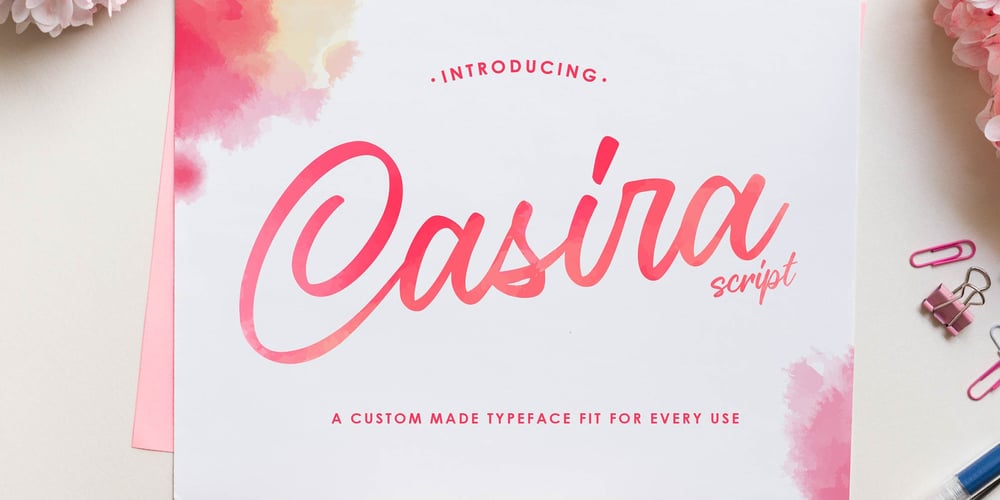
Casira Script Font Family was designed by Heri Imanudin and published by Krafted. Casira Script contains 1 styles and family package options. We live only to discover beauty, all else is a form of waiting.— Khalil GibranWait no more, this beautiful font can be yours right now! This custom made font was specifically designed to fit whatever you need!The curvature of the Casira Script was fully thought out to easily meld inside your designs. These fonts make a good foundation of what you want it to be! Discover the beauty in your own imagination while this font gives you a quick kickstart to what it can be.Everything’s well with cursive! Show your opulence and decadence with this fancy font and blow your audience’s mind away as you put these cursive letters in your projects.Communicate the extent of your mind so that whoever views your designs understand not just what you write, but also the tone and feel of it!The Casira Script makes a perfect addition for your collection of fonts, show love and bring out the true you!Feel free to contact us if you need anything else! If you have a request on what kind of fonts you’d like to see, tell us that too!